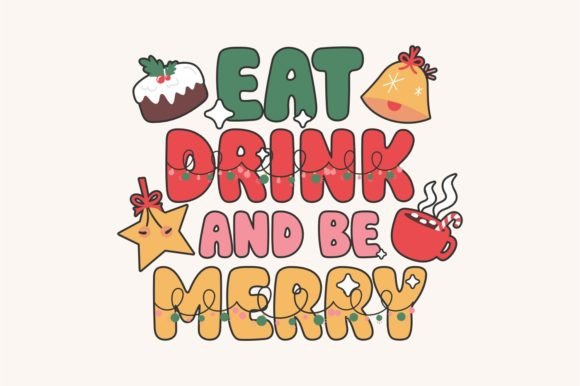
Magical Season Font
Magical Season is bold, retro, and expressive. Its thick and solid lines make it easy to read and its conservative bends aren’t overwhelming on the eyes. A balanced fusion of playful and professional, there are a ton of design projects this font will be perfect for.
Use Magical Season font to add a special retro or modern touch to your Christmas designs or anything else you can think of, you can freely explore using this font because apart from its cool appearance, this font has many bonuses including Christmas typography quotes and Christmas illustrations